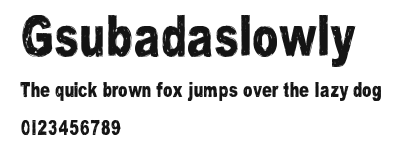
Gsubadaslowly Preview
• Font Name: Gsubadaslowly
• Full Font Name: Gsubadaslowly
About Gsubadaslowly.ttf
Gsubadaslowly.ttf is a modern, elegant sans-serif font designed for ultimate readability and visual harmony. Perfect for branding, headlines, web design, and print materials.